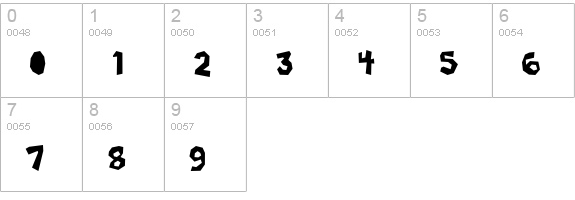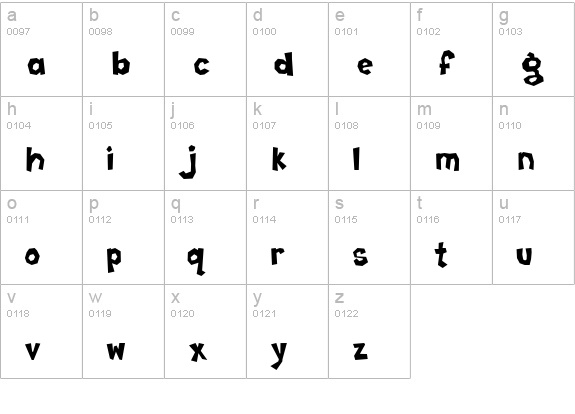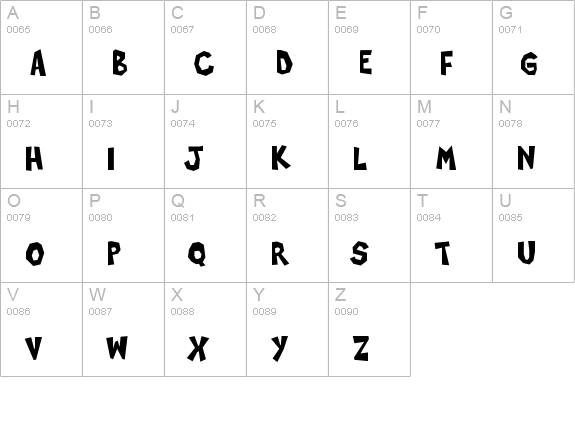
Poppycock Font Details
Introducing Poppycock font, a whimsical and playful typeface that exudes charm and character. With its unique design featuring quirky shapes and delightful flourishes, Poppycock is sure to add a touch of fun to any creative project. This font is perfect for branding, logos, invitations, and more. Best of all, Poppycock is available for free download at FontsMarket.com, making it easily accessible for designers and enthusiasts alike. Don't miss out on the opportunity to add this delightful font to your collection and let your creativity shine with Poppycock!